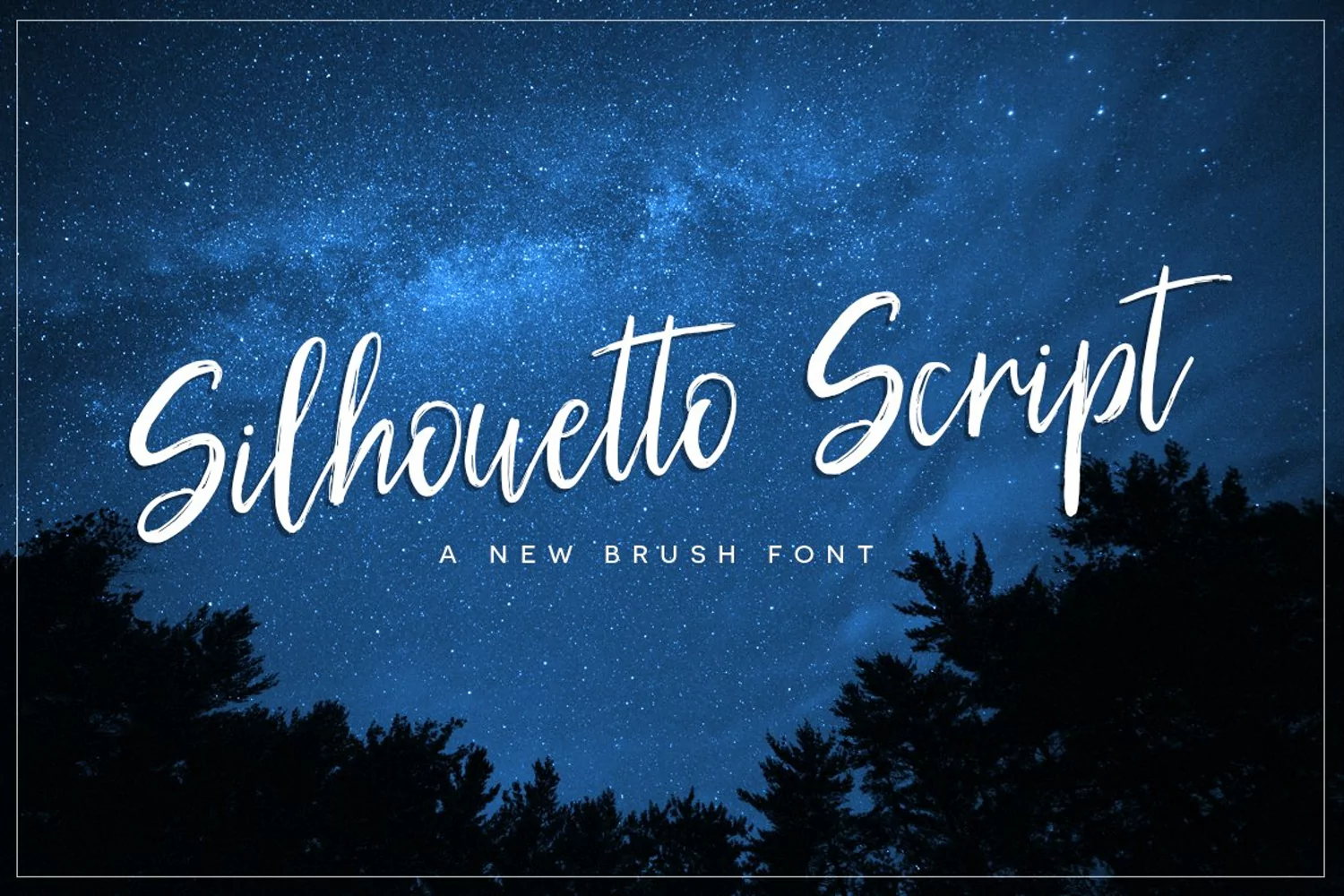
Silhouetto Script - Modern Hand Lettered Brush Font
Silhouetto Script is a modern hand lettered brush font. This font has a dry brush feel which gives a natural modern appearance that is captivating. Script fonts such as Silhouetto Script are wonderful to use for weddings, invitations, logos, branding, packaging and much more.